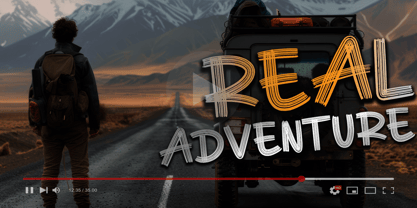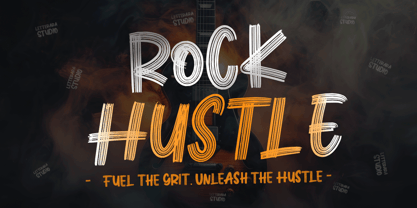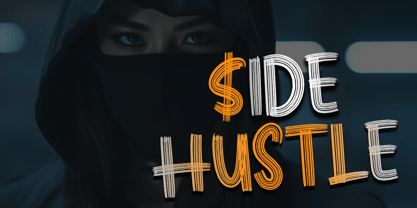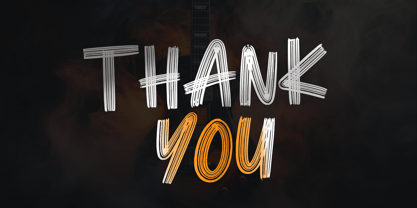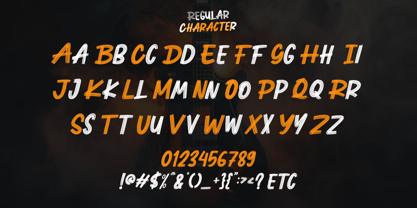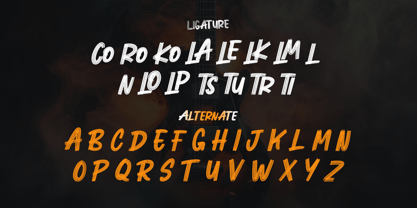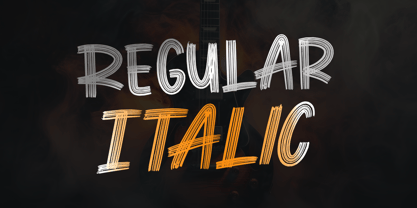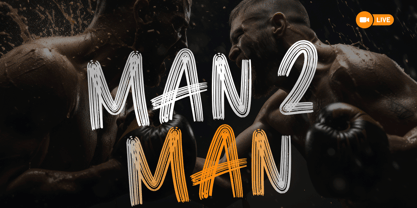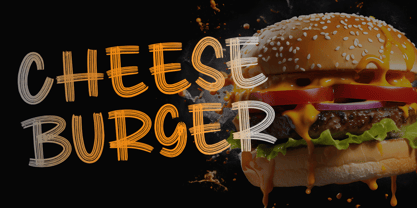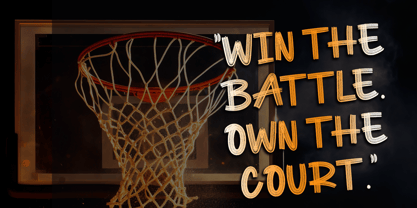
Rock Hustle
by Letterara
The Rock Hustle Font Family was designed by Thomas Aradea and published by Letterara. Rock Hustle contains 2 styles and family package options. More about this family
Introducing Rock Hustle — a gritty display brush font forged in fire and fueled by fierce ambition. Rock Hustle blends raw, hand-painted strokes with unapologetic power, echoing the rebellious spirit of underground music scenes and the relentless energy of creative hustlers. With bold, textured lines and an electrifying presence, this font is built to command attention—whether on stage, in the streets, or across fearless branding.
Perfect for album covers, streetwear labels, bold merchandise, motivational quotes, and visual identities that demand to be seen and heard. Rock Hustle is more than a font—it’s a movement. With multilingual support, alternate characters, and full PUA encoding, you’re free to create loud, gritty, and unstoppable designs.
Fuel the grit. Unleash the hustle. Rock Hustle brings the heat.